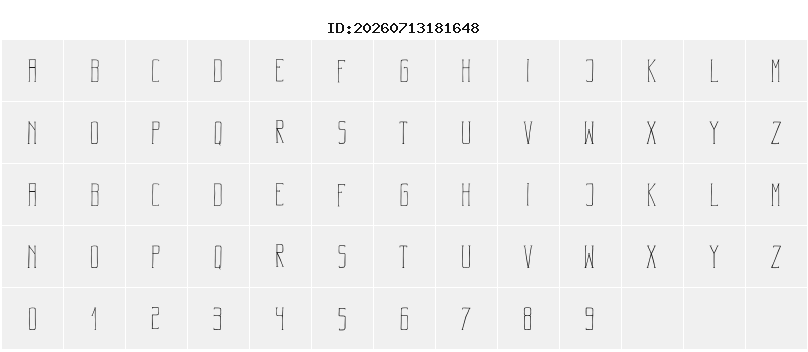
Badass Typography Preview
• Font Name: Badass Typography
• Designer: Robin Röcker
About Badass Typography.otf
Badass Typography.otf is a modern, elegant sans-serif font designed for ultimate readability and visual harmony. Perfect for branding, headlines, web design, and print materials.